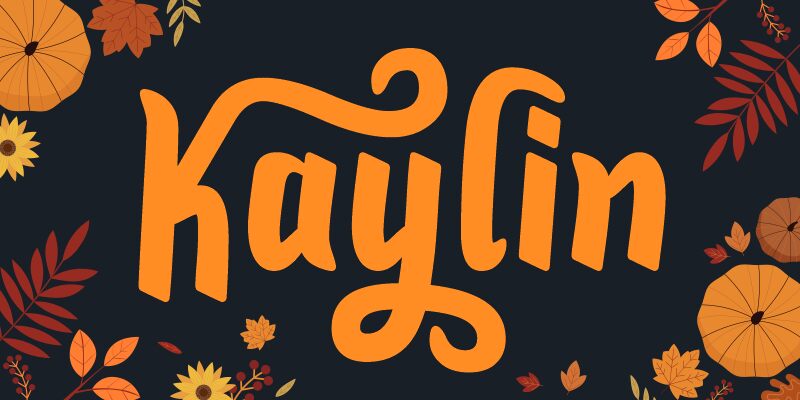
Kaylin is a bold, narrow handwritten font designed by Iwan Kristiaman Nazara, Jasman Nazara and Situjuh Nazara. It's perfect for everything from logos to quotes to greeting cards and invitations. With its unique personality, Kaylin will be sure to make your project stand out!